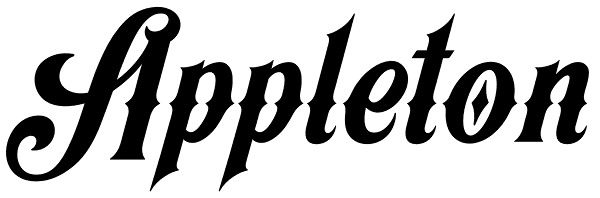
Appleton
Back to 1880-1900 when a number of events were coming together, the country was evolving from a local market economy to mass merchandising, rail systems were being built and color lithography was becoming more affordable. The first rail cars full of...